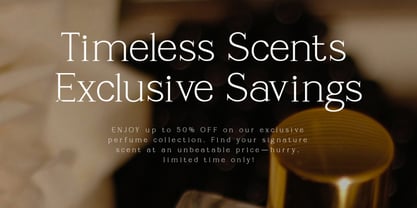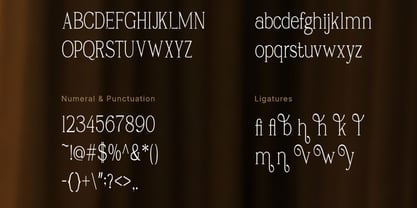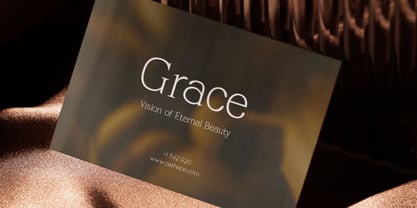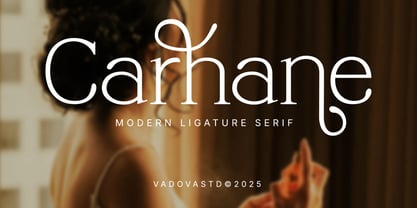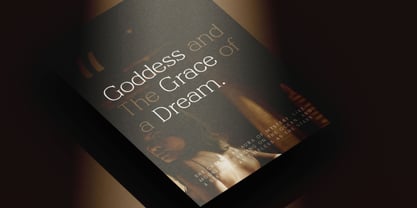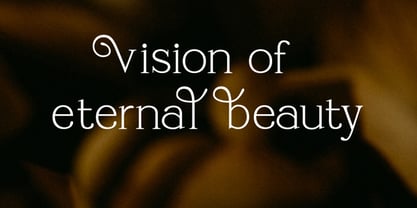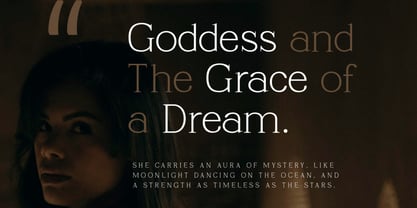
Carhane
Carhane presents a modern ligature serif typeface featuring elegant curves, refined contrast, and distinctive decorative ligatures. The file includes uppercase, lowercase, numerals, punctuation, and stylistic ligature alternates designed to enhance visual sophistication. Crafted with clean spacing and high readability, it works seamlessly across print and digital formats. This typeface is highly relevant for premium visual branding and editorial design where elegance and sophistication are essential. It works effectively in fashion campaigns, beauty products, luxury packaging, magazine layouts, and refined digital content. The ligature details enhance uniqueness, making it suitable for logo creation and high-end marketing materials.